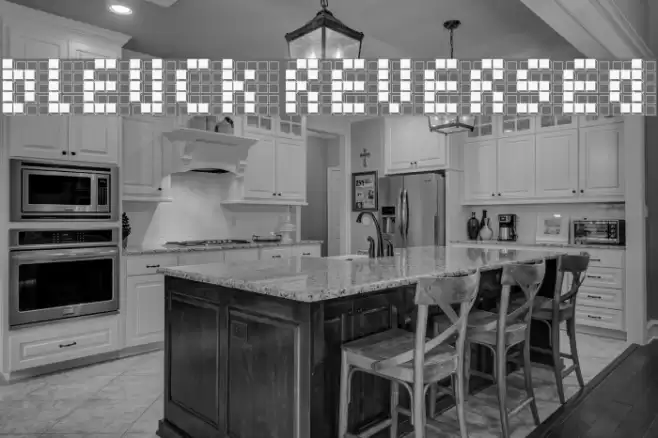
bleuck reversed Font
bleuck reversed Description
This font features a unique pixelated style, reminiscent of early digital displays or retro video games. Each character is constructed using a grid of squares, giving it a blocky and geometric appearance. The uppercase letters are bold and prominent, while the lowercase letters maintain the same pixelated structure, ensuring consistency across the typeface. The numbers and special characters follow the same design principles, making the font versatile for various applications. Its distinct style makes it stand out, ideal for projects that require a digital or nostalgic aesthetic.
A pixelated, retro-style font with a bold, geometric design from Uncategorized fonts.
- Proposed Projects: Ideal for video game design, digital art projects, retro-themed posters, and any creative work that requires a nostalgic or digital aesthetic.
- Overall Style: Retro, Digital